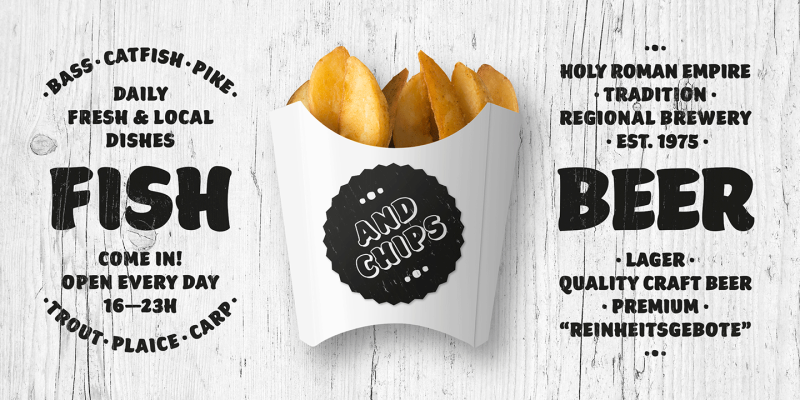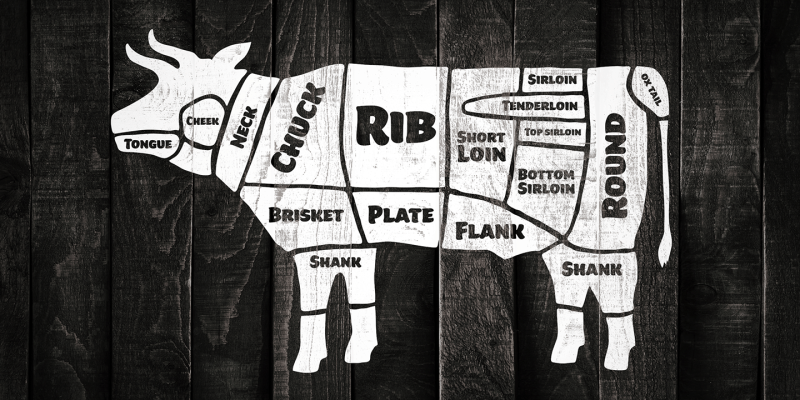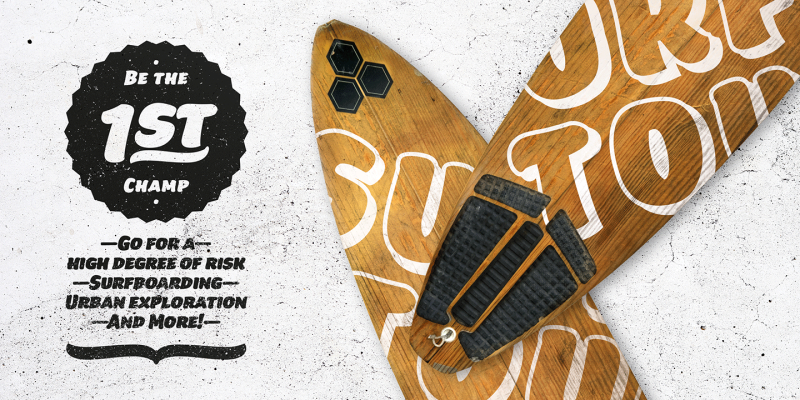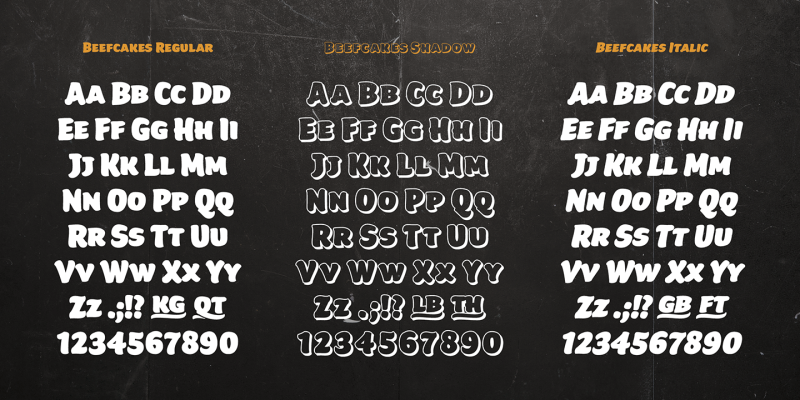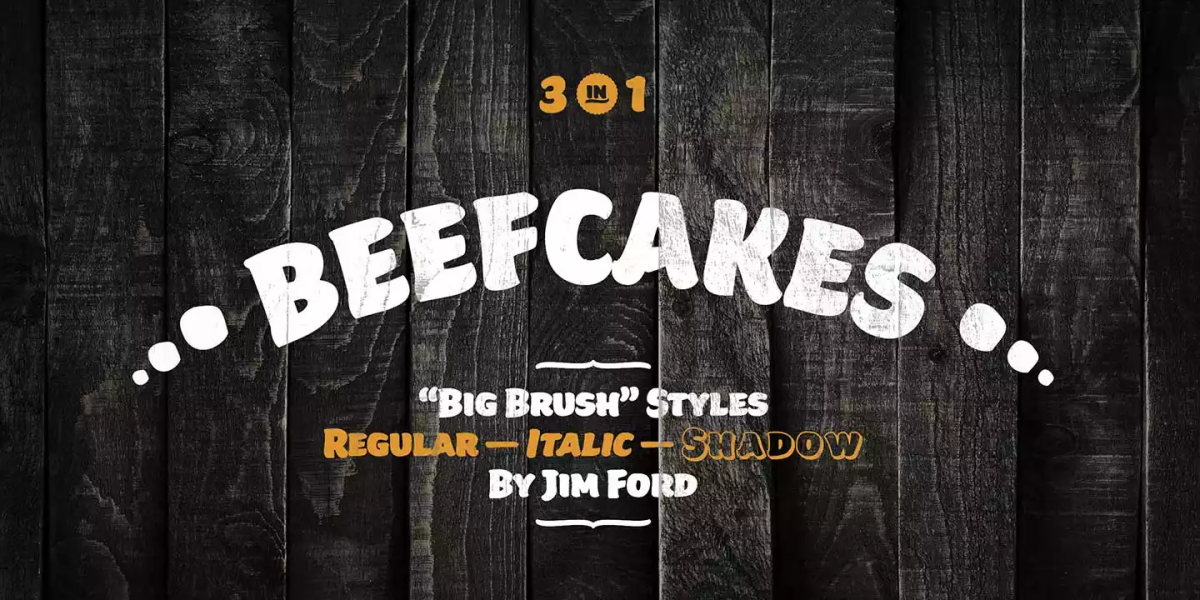
Beefcakes Font
Inspired by butcher shop and supermarket window advertising, Beefcakes emulates “big brush” style lettering – with a contemporary twist. This design is not for the typographically timid; it makes a powerful and friendly statement in print and on screen. Advertising headlines, posters, cover art, menus, and packaging are all in Beefcakes’ wheelhouse. While it would be a little crowded on small screens, significant types of websites and games are also part of Beefcakes kit-bag.
Where Beefcakes Font works best
Beefcakes Font is built for size: event posters, hero headlines and billboard-style layouts.
High contrast display type like Beefcakes Font reads instantly in thumbnails and motion graphics.
What is Beefcakes Font good for?